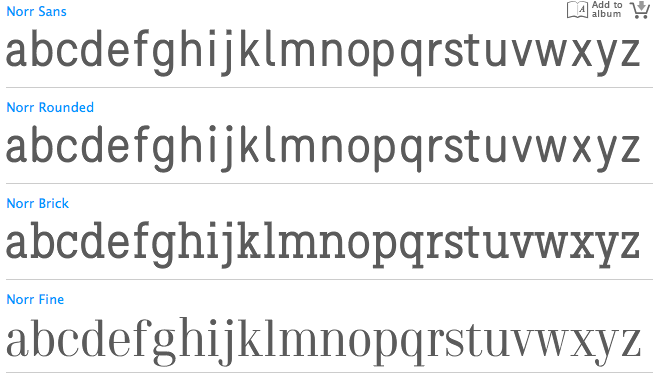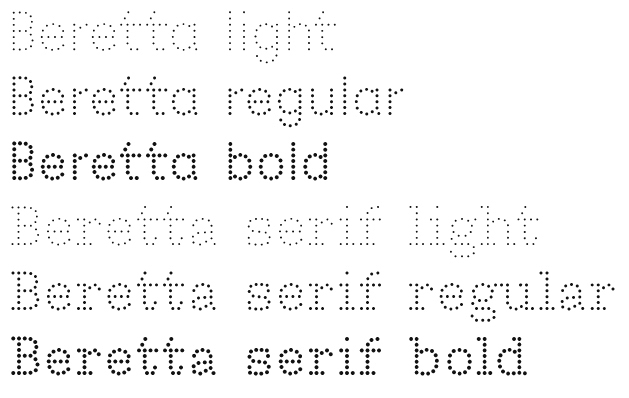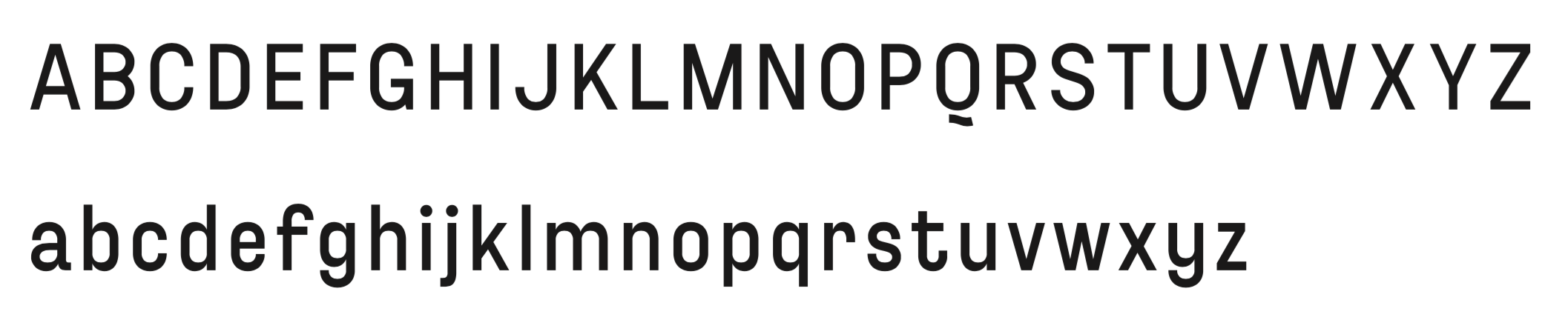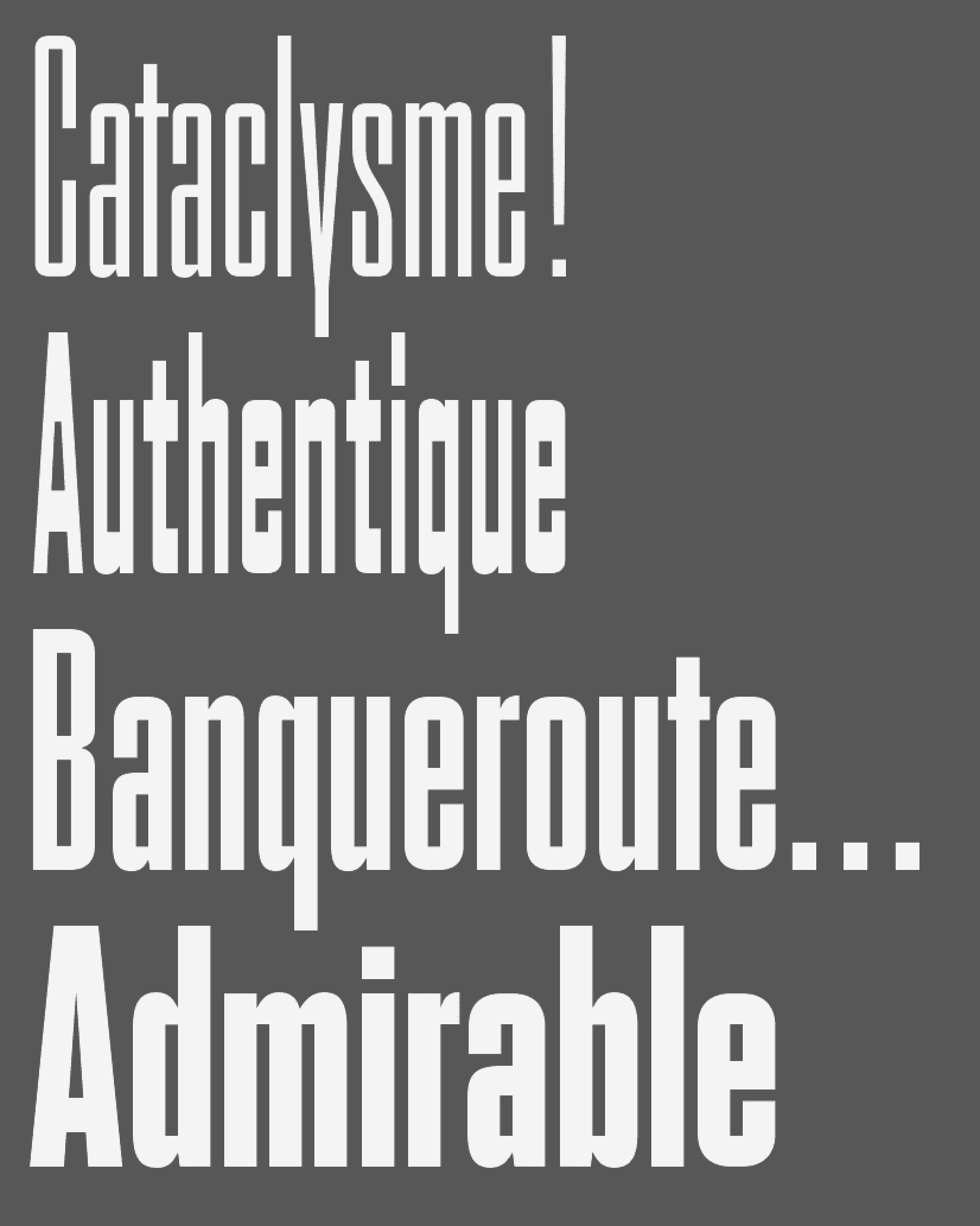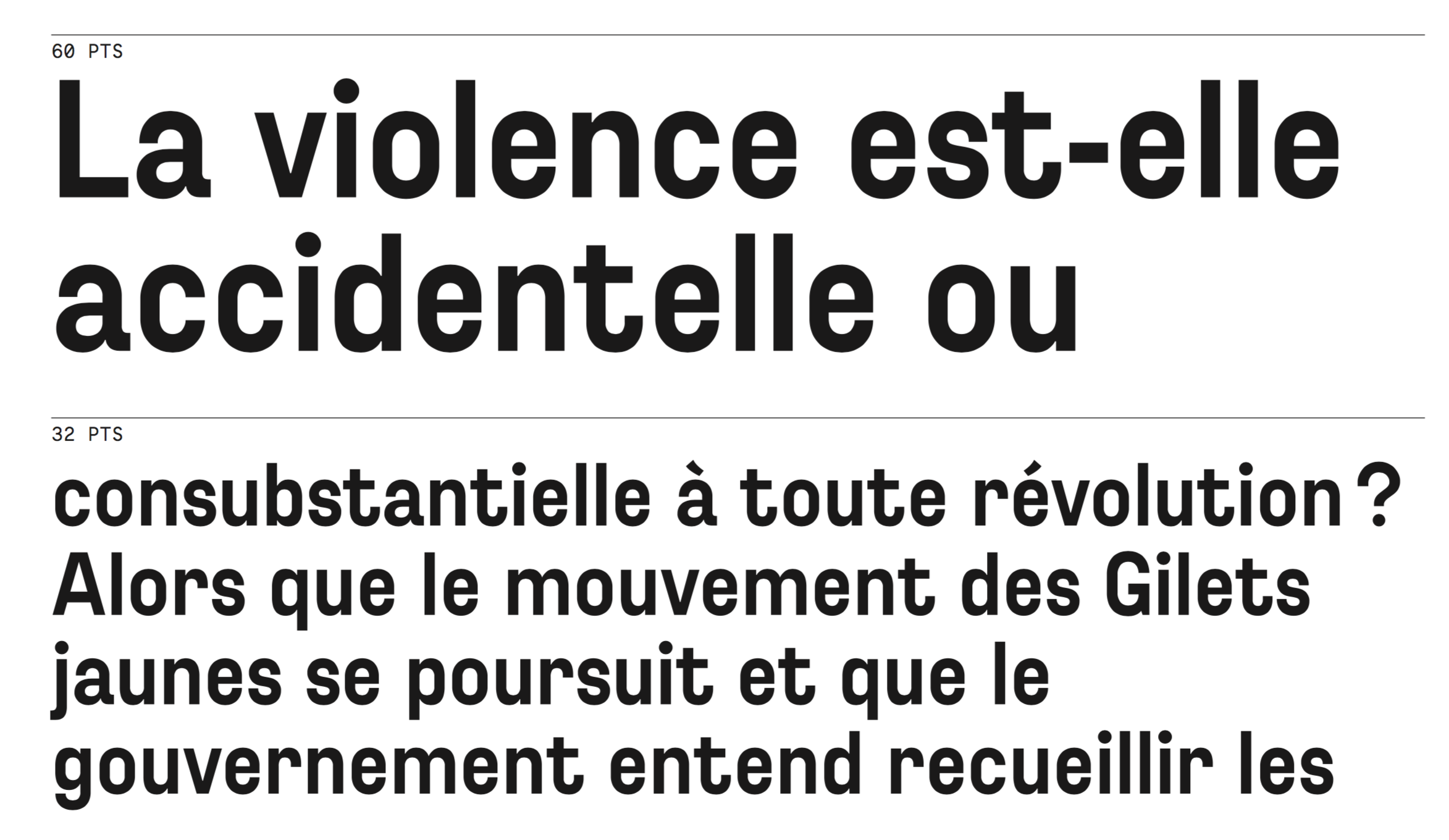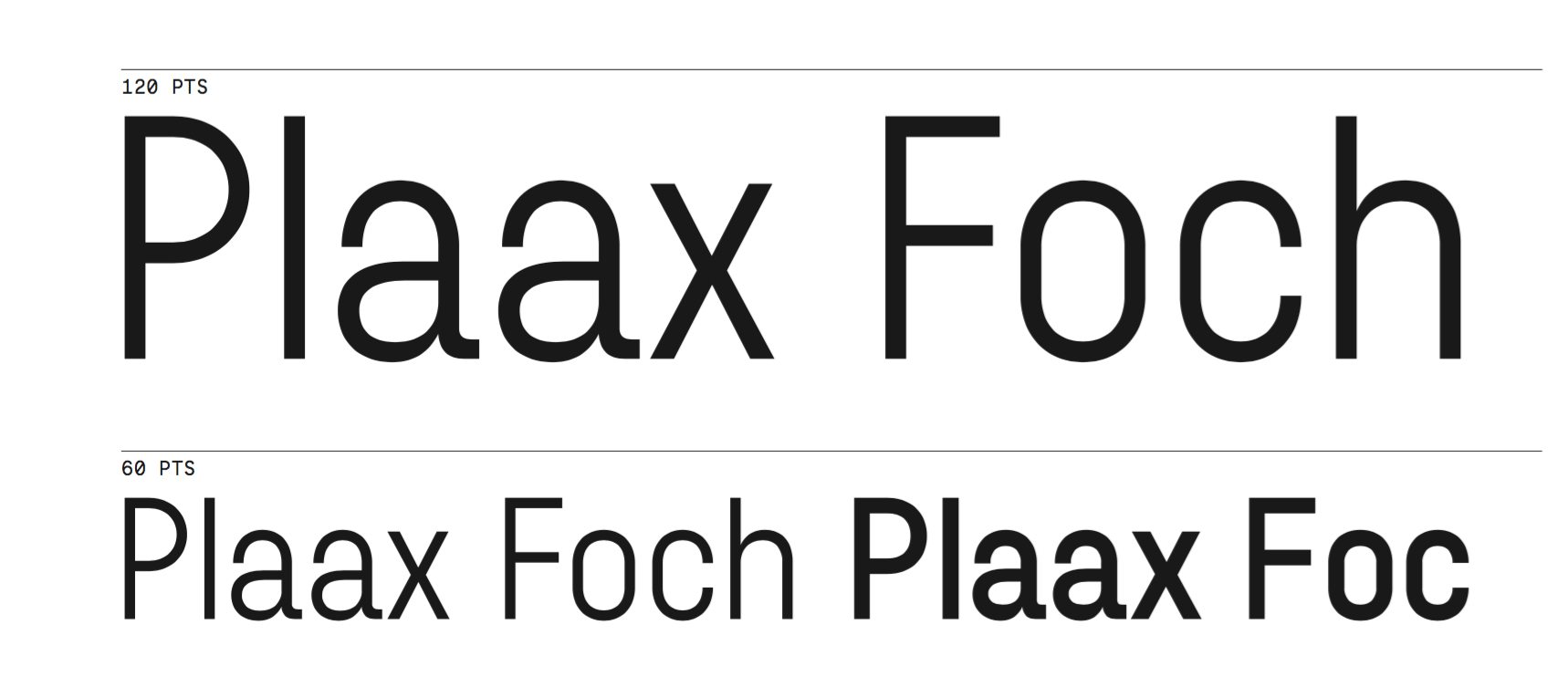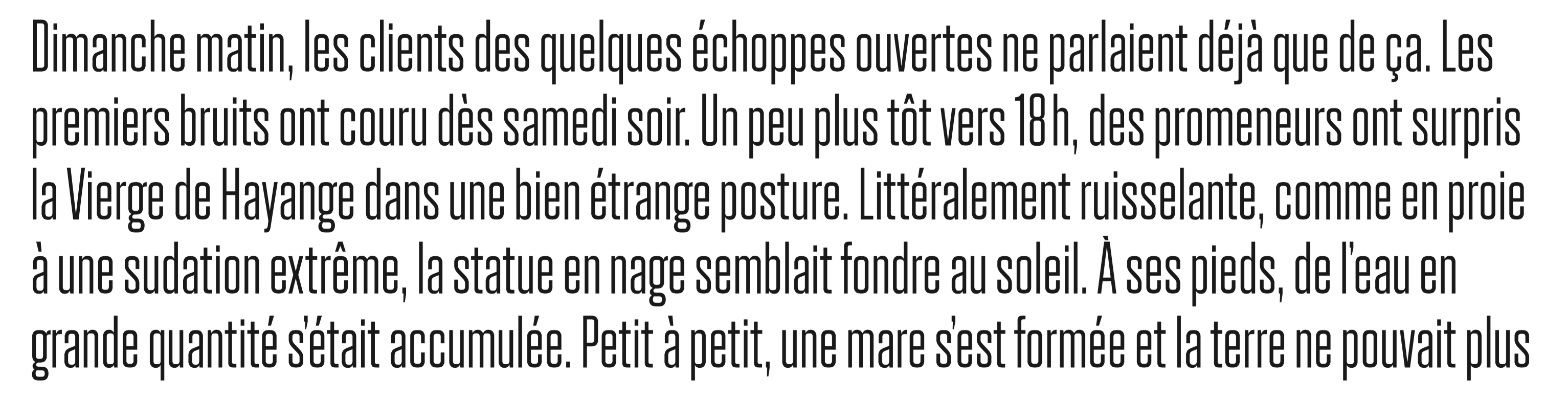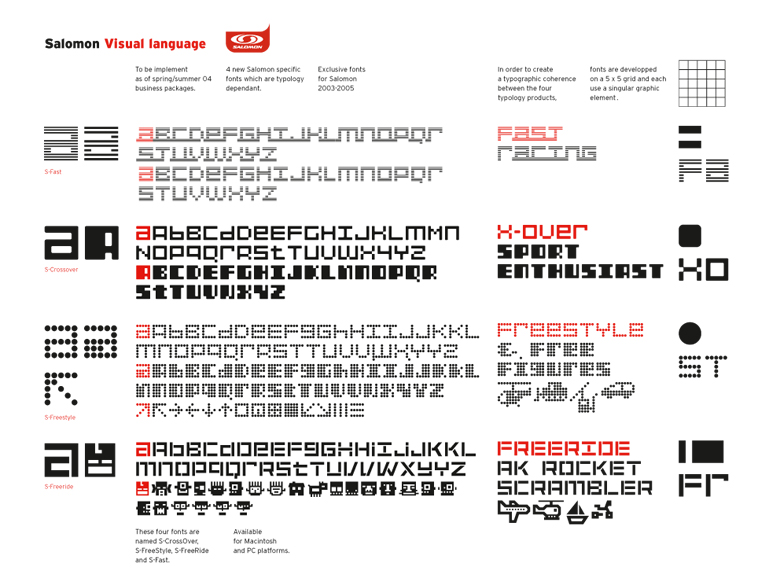
Bureau 205 (was: Trafik) [Damien Gautier]
Damien Gautier (b. 1971) studied typography in the Atelier de création typographique at l'Ecole Estienne, Paris. He co-founded Trafik, a type studio in Lyon. More recently, his fonts are distributed via 205 Corp and 205 TF, which he founded. He also teaches graphic design at Ecole Nationale Supérieure des beaux-arts de Lyon. He runs the publishing house Editions deux-cent-cinq which publishes books on graphic design and typography.
At Typotek, he designed LeQuincaillerie (fifties font, 2000), LeMenuiserie (2000), LeConfiserie (2000, an electronic panel font), LeConfiserie Couleur, L'ekran Dix (a pixel font), LeBoucherie-Ornament (2000), LeBeaune (1995-2011, a flared roman lettering typeface created at first for the town of Beaune in Burgundy), Alcala (1994).
For Salomon (the ski company brand font), Damien Gautier received a Trophée d'Or nomination at the Integraphic Congress in Paris in 2003.
MyFonts, where his foundry is called Trafik, and then Damien Gautier, then "205", Editions 205, and finally Bureau 205, sells these typefaces: Colonel (stencil), Laikran (pixel family), Le Bazar, Le Beaune, Le Chaufferie, Le Confiserie Couleur, Le Gendarmerie, Le Menuiserie, Le Quincaillerie, Pam (2005, counterless), Plaak (2013-2014, a large sans caps family inspired by French street name signs; co-designed with Olivier Raimbaud and Corentin Noyer), Robin (2010, a dingbat typeface with arrows, co-designed with Delphine Sigonney). In 2010, Gautier created Caporal (an elegant clean stencil face), Le Francois (a set of stylish capitals).
In 2009, Damien Gautier designed Bloo (a wedge-serifed typeface). Salomon is a corporate typeface family.
Typefaces of Damien Gautier and Quentin Margat in 2010: Amiral (cargo stencil), Alcala (started in 1994, finished in 2010, this text family is based on renaissance forms and was used to print a Bible).
With Quentin Margat, he created some typefaces in 2011 such as Maax (an information design sans family), Norr (styles include a didone, a slab serif, and two sanses), Colonel, and Beretta (dot matrix family).
In 2013, Damien Gautier designed Maax Mono and Maax Rounded, both at Editions 205.
In 2019, he published Plaax as an extension of Plaak. Subfamilies include Sathonay (super-condensed), Griffo, Pradel, Terme, Foch and Ney, from super-condensed to wide.
In 2021, Damien Gautier published the experimental sans typeface Heliuum in which letters can have different baseline heights.